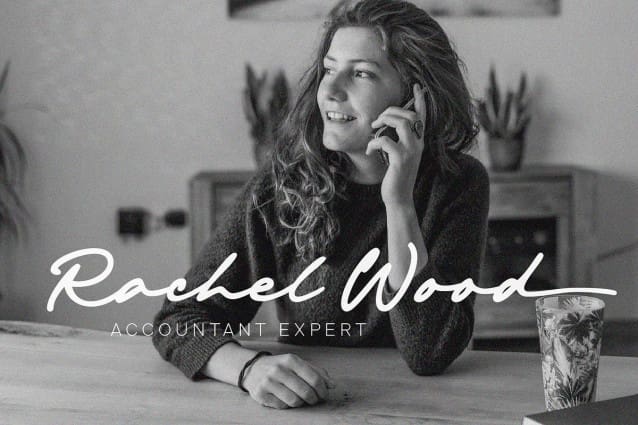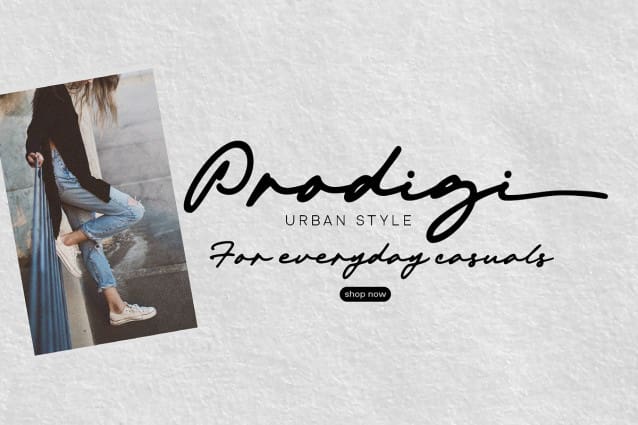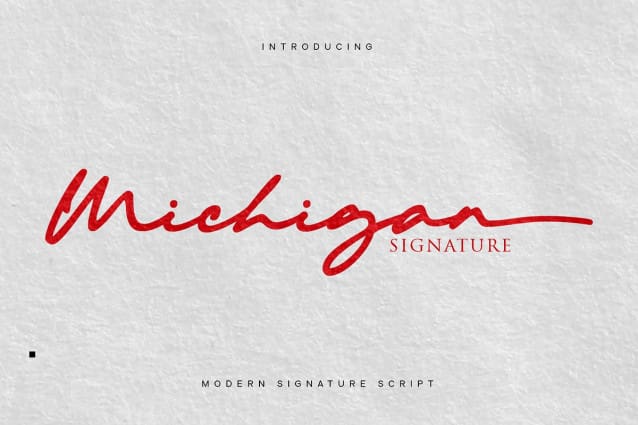
Michigan Signature Font
Michigan Signature Font, is a monoline Calligraphy script font, the font looks slightly lower in a constant direction. Like making a quick signature, firm and strong decisions.